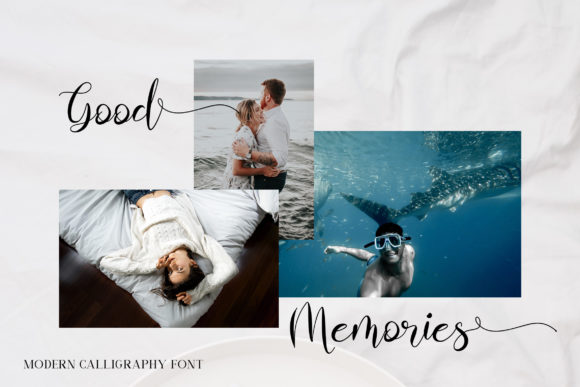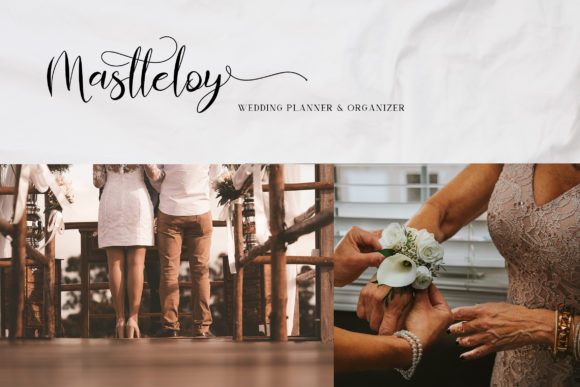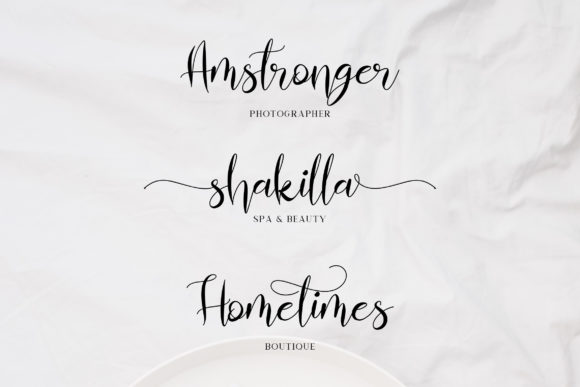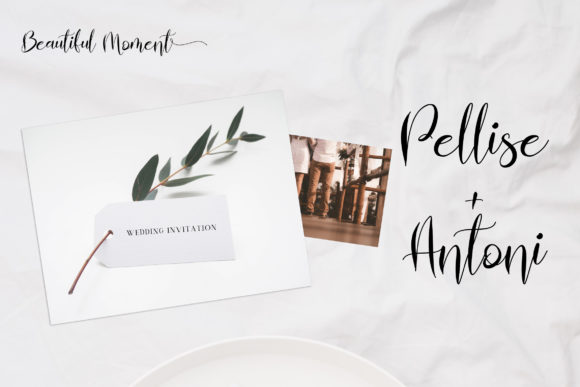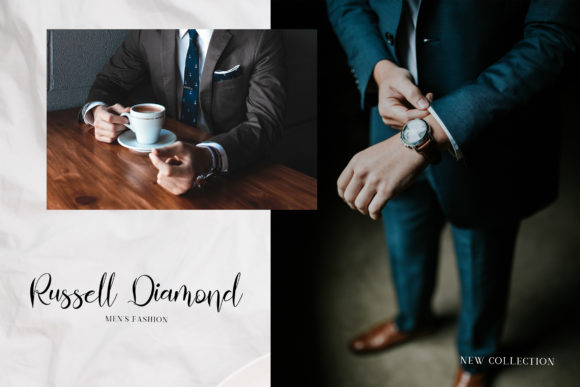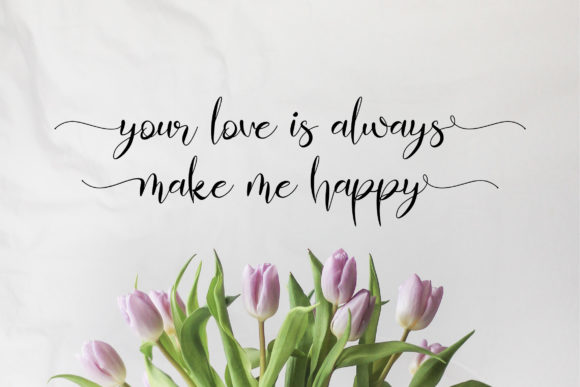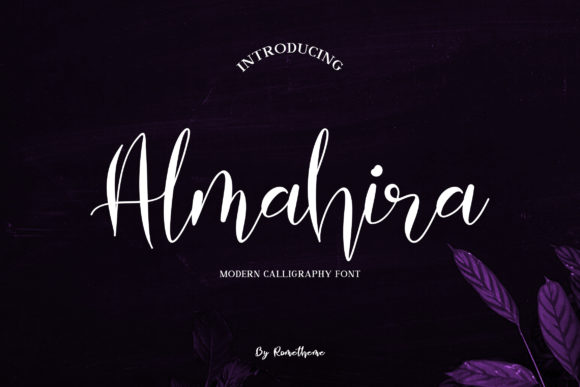
Introducing Almahira Script Font: Elevate Your Designs with Luxurious Elegance
In the realm of typography, few fonts manage to convey the essence of luxury and elegance as effectively as the Almahira Script Font. This modern calligraphy typeface has been meticulously crafted to bring a touch of sophistication and refinement to a wide array of design projects. Whether you’re working on digital applications or print materials, Almahira stands out as a versatile and stylish choice, capable of elevating your creations to new heights.
The Characteristics of Almahira Script Font
Almahira is distinguished by its beautiful, luxurious appearance. Each letterform is designed with meticulous attention to detail, showcasing flowing lines and graceful curves that embody the essence of modern calligraphy. This font exudes a sense of elegance and refinement, making it an ideal choice for designers looking to add a sophisticated touch to their work.
One of the key advantages of Almahira Script Font is its versatility. It can be seamlessly integrated into a plethora of design projects, spanning both digital and print applications. Here are some of the areas where Almahira truly shines:
- Signatures and Watermarks: Add a personal touch to your documents or photographs with elegant signatures or watermarks.
- Quotes and Typography: Make your quotes stand out with a stylish font that captures attention.
- Album and Book Covers: Create stunning book or album covers that convey the essence of your content.
- Business Cards and Logos: Elevate your business identity with a sophisticated font that communicates professionalism.
- Branding and Magazines: Consistency in branding is key, and Almahira can help you maintain an elegant look across all your materials.
- Social Media and Advertisements: Stand out in the crowded digital space with eye-catching text that speaks of luxury.
- Product Designs: Whether you’re designing packaging or promotional materials, Almahira adds a touch of class.
Why Choose Almahira for Your Design Projects?
Choosing Almahira Script Font for your projects comes with numerous benefits:
- Unique and Memorable: Its distinctive style ensures your designs are memorable and impactful.
- Professionalism: The luxurious look of Almahira conveys a sense of professionalism and high quality.
- Flexibility: Suitable for a wide range of projects, from digital media to print.
- Elegance: Adds a sophisticated touch that can elevate the perceived value of your designs.
Tips for Using Almahira Script Font Effectively
To maximize the impact of Almahira, consider the following tips:
- Pair with Simplicity: Let Almahira be the focal point by pairing it with simpler fonts for supporting text.
- Use in Moderation: While Almahira is elegant, using it sparingly can make your designs more effective.
- Experiment with Colors: The right color choice can enhance the luxurious feel of Almahira.
Almahira Script Font is a powerful tool for designers and crafters looking to infuse their projects with a sense of luxury and elegance. Its versatility, combined with its beautiful and sophisticated design, makes it an excellent choice for a wide range of applications. By incorporating Almahira into your design repertoire, you’re not just choosing a font; you’re elevating your designs to communicate professionalism, elegance, and a touch of sophistication. Whether you’re working on a business project, a personal craft, or anything in between, Almahira Script Font is sure to leave a lasting impression.